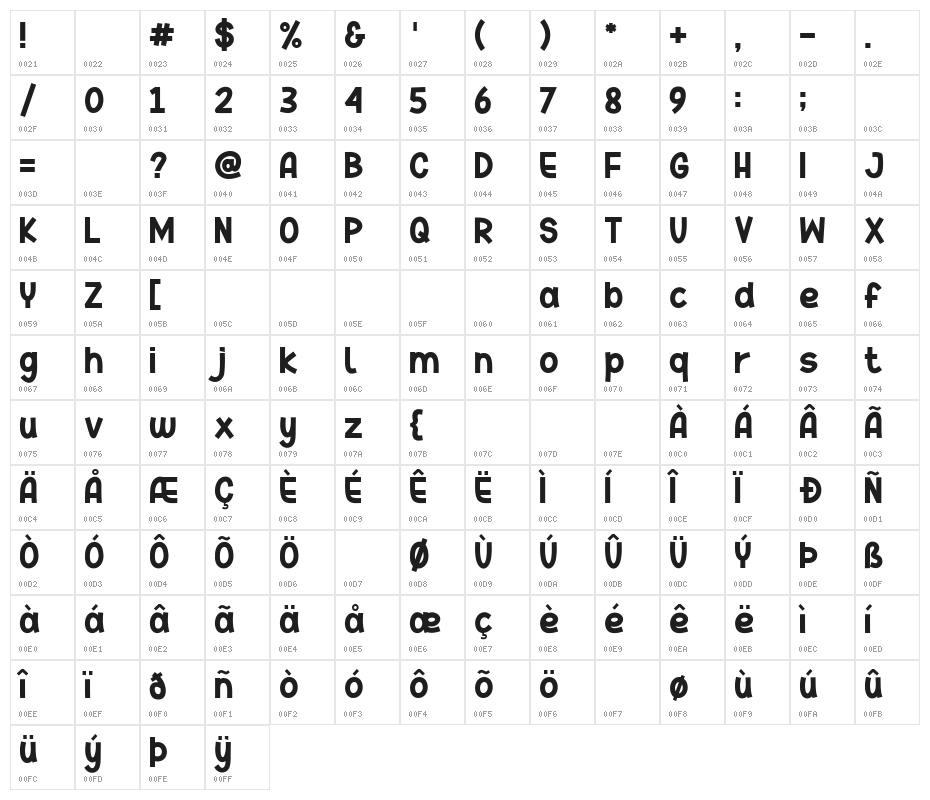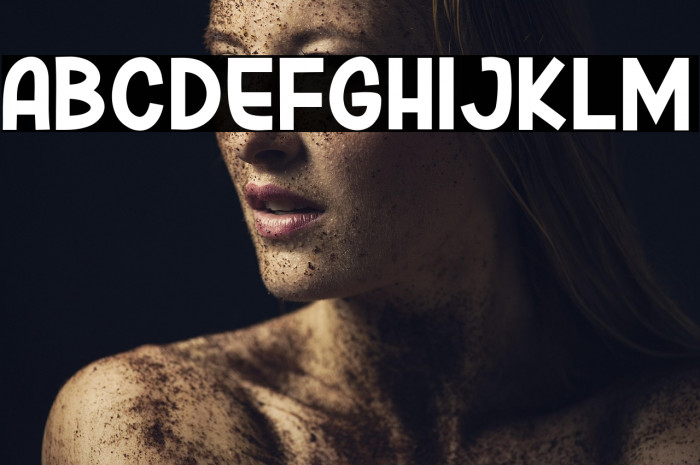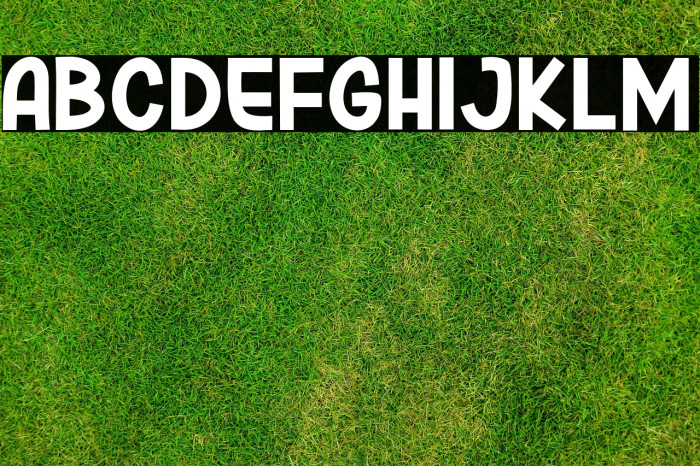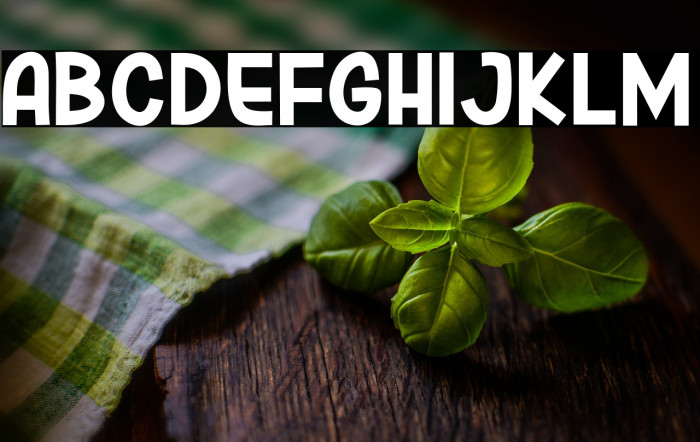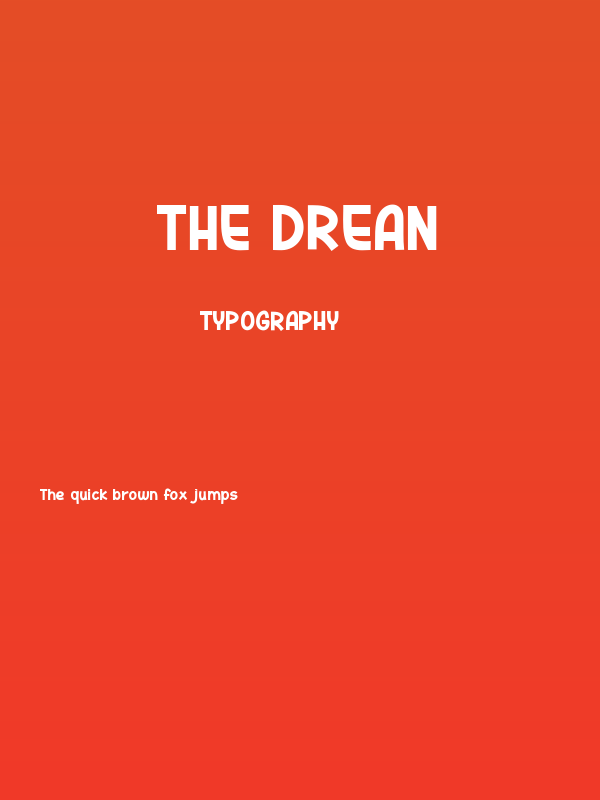
The Drean Font
The Drean Description
This font features a playful and bold style with rounded edges and a slightly whimsical appearance. The characters are uniformly thick, giving it a strong presence while maintaining a friendly and approachable look. The uppercase letters are slightly taller than the lowercase, with a consistent width that makes the font easy to read. The numerals are clear and distinct, matching the overall style of the letters. Special characters are well-integrated, maintaining the playful aesthetic. The font's design is suitable for projects that require a fun and engaging typeface.
| Proposed Projects | Ideal for children's books, playful branding, posters, and casual invitations. |